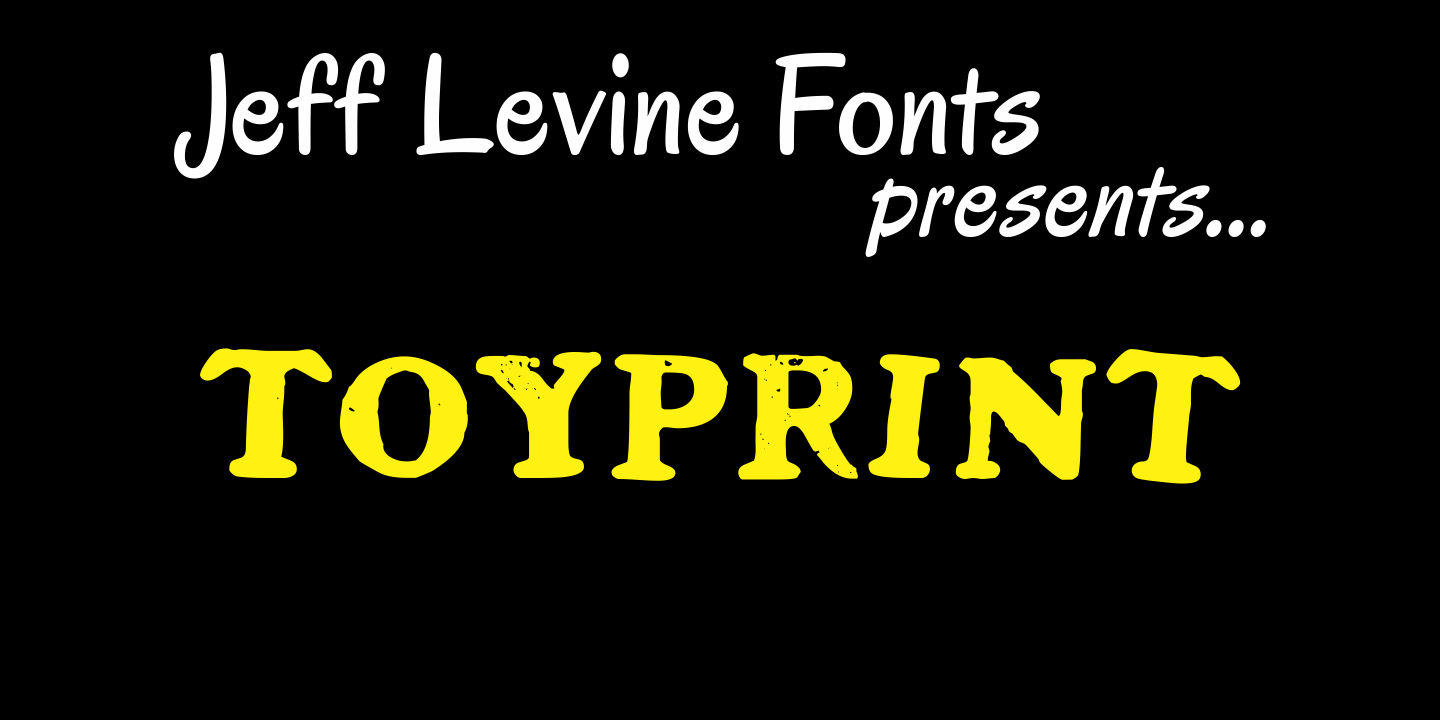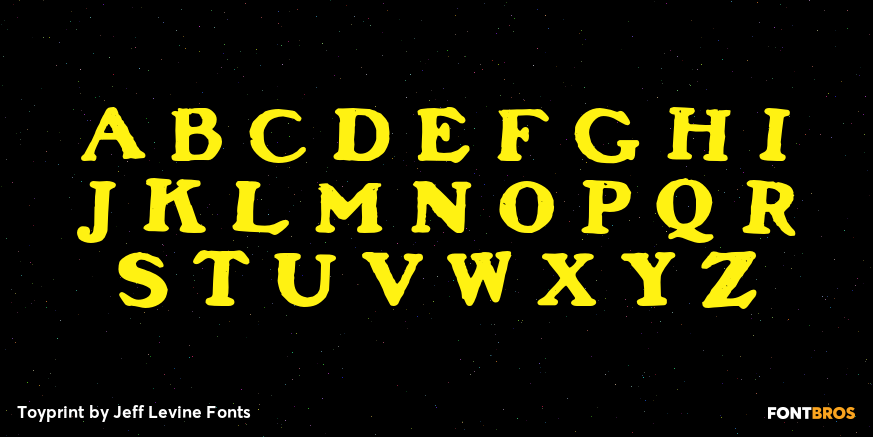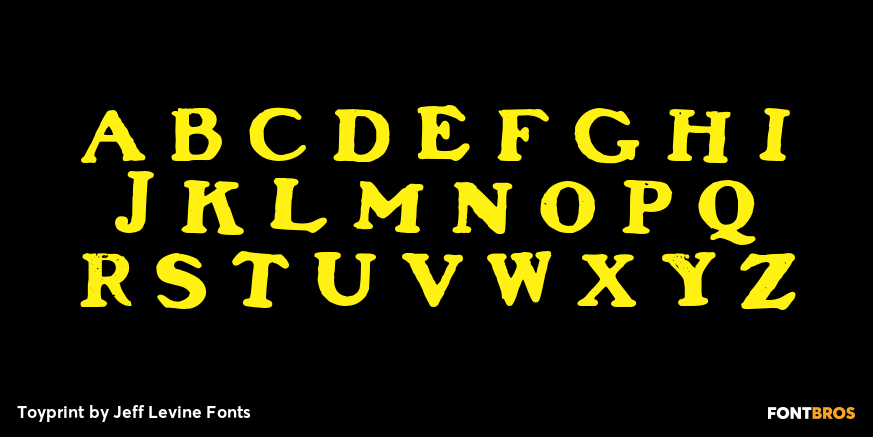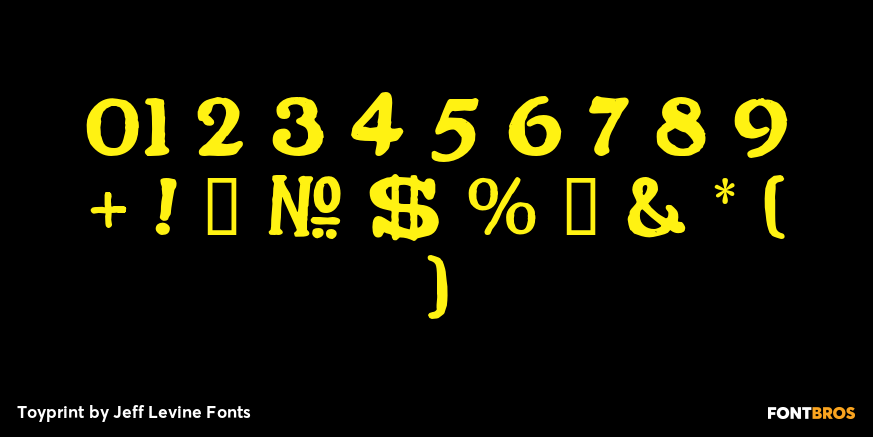
Toyprint
Toyprint JNL is based on scanned print samples of a toy rubber stamp set imported from Japan circa the 1930s. No kerning and a very limited character set, but fun and nostalgic nonetheless. NOTE: Large size rendering of the type will give the appearance of cut paper rather than rubber stamp impressions due to the nature of the scans for this font.